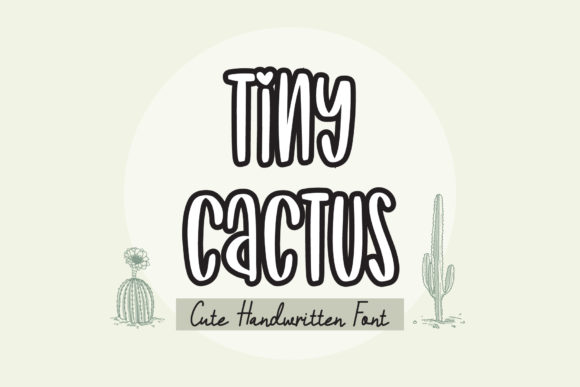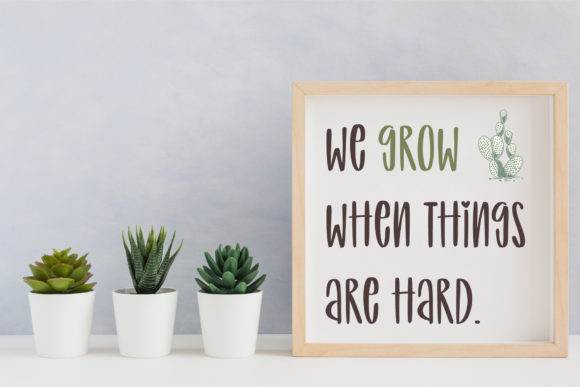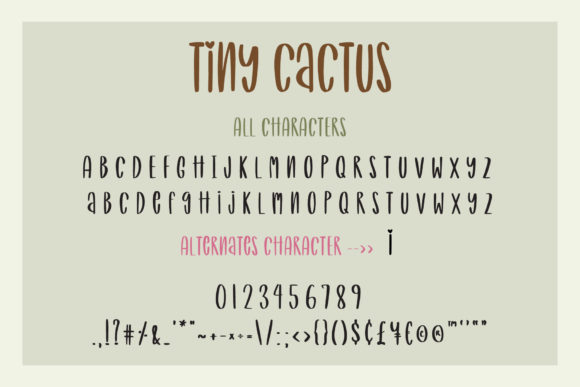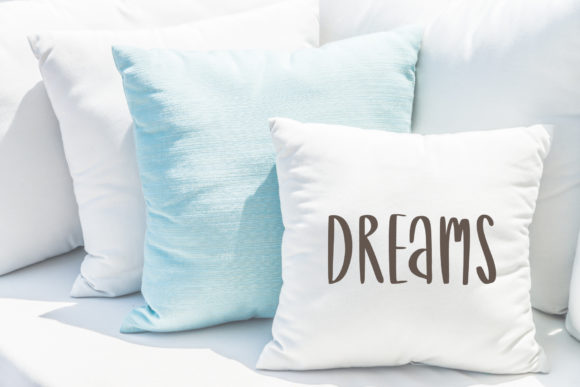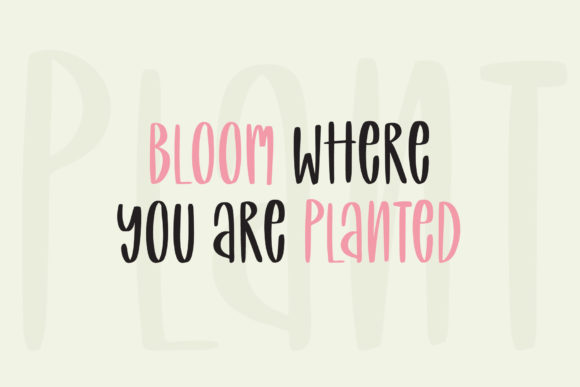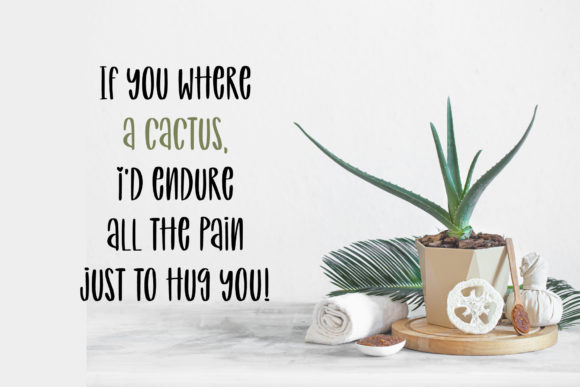
Tiny Cactus Font
About Tiny Cactus Font
Tiny Cactus is a friendly handwritten font. It features a quirky look and is the perfect fit for your social media posts, posters, cards and cute greeting cards.